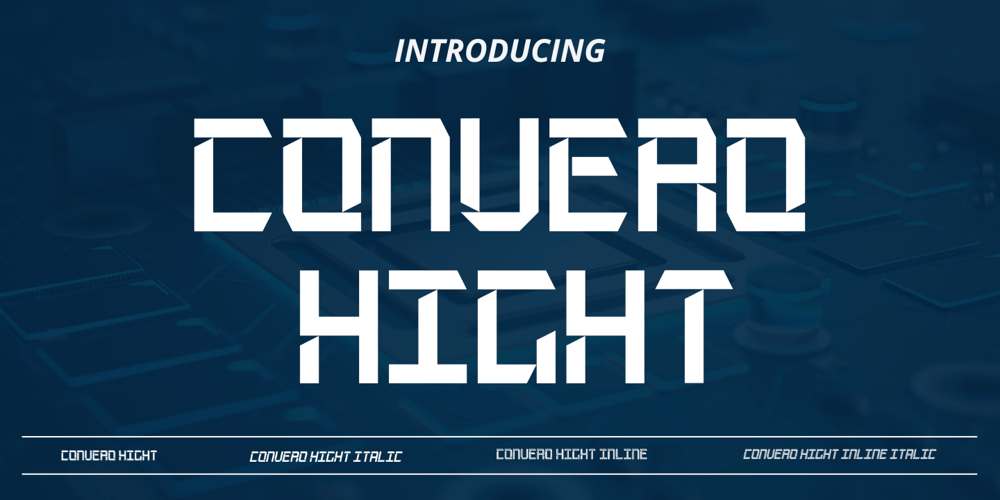
Convero Hight Inline
Convero Hight Inline font
Convero Hight Inline Font Family was designed by Ali Sifak Muftari and published by Liartgraphic. Convero Hight Inline contains 4 styles and family package options. Hi guys!How are you guys? I bet it’s great!Introducing our latest product, we call this product the convero hight display fontconvero hight is a monoline display type fontWith a unique and firm touchconvero hight font is great to use on:fashion magazines, logos, photography, landing pages, flyers, social media and so onWhat’s included- multilingual support- alternatives- ligaturesThank you, best regardsLiarttyype